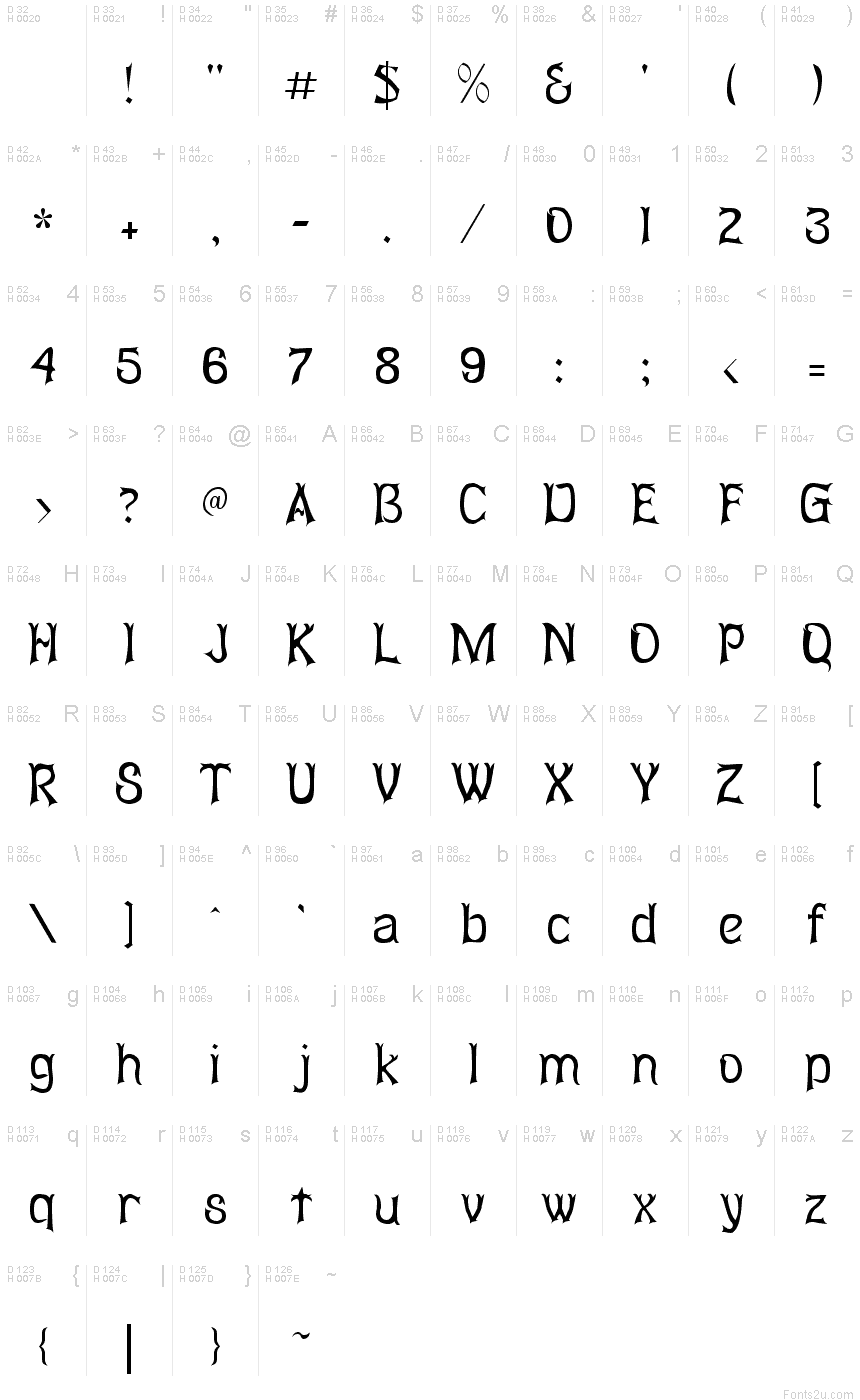
Abagail Regular
Abagail font by R Schenk is a free distorted vintage display typeface with a deliciously crooked, storybook-meets-gothic feel. Its inky black strokes twist and flare, like letters drawn by hand on old parchment, giving every word a slightly uneasy, enchanted energy. The rhythm feels organic and irregular, so headlines look alive rather than mechanically set, with curves that pull the eye across a title in one smooth sweep.
Using Abagail, you can push mood to the forefront in Halloween posters, dark fantasy book covers, occult zines, escape-room branding, gothic event flyers, and eerie YouTube thumbnails. The letters stay legible even as they warp and bend, which makes this free font strong at larger sizes where its quirks can breathe. Pair it with a plain, narrow sans serif in small text to keep things readable while Abagail handles the drama in your main titles.